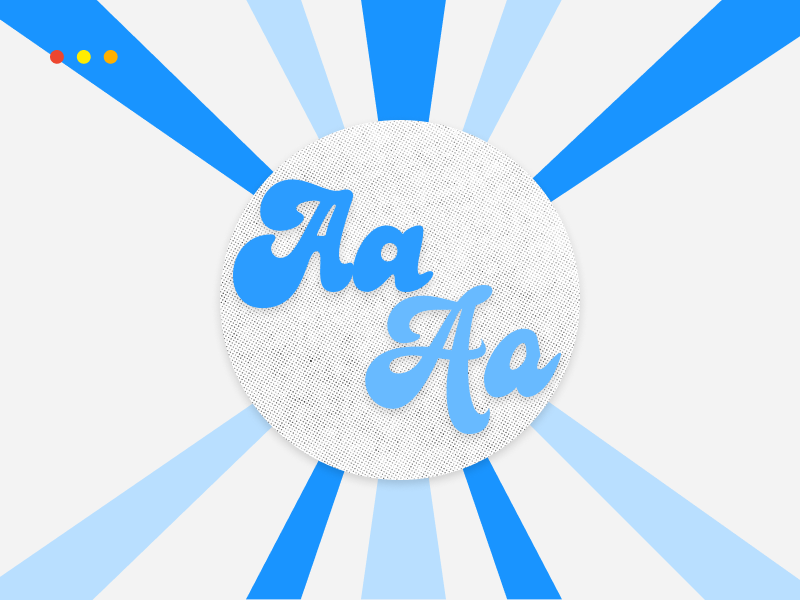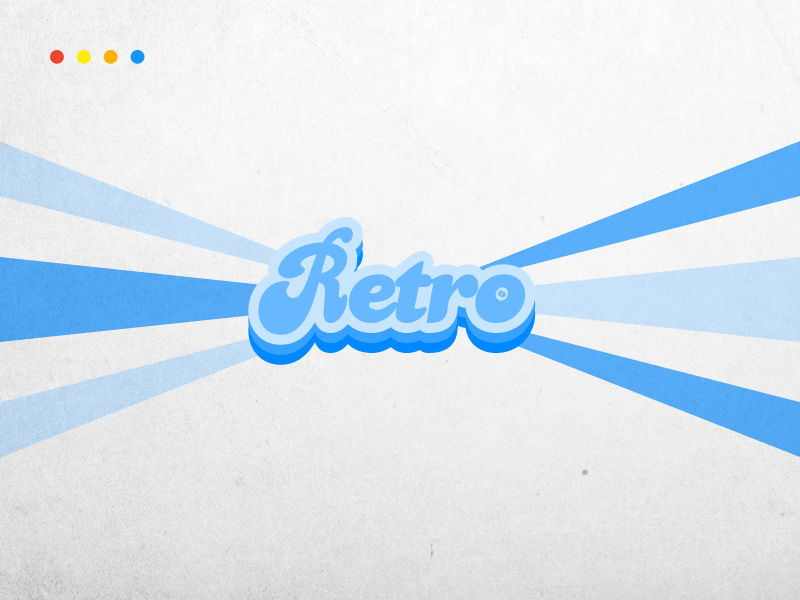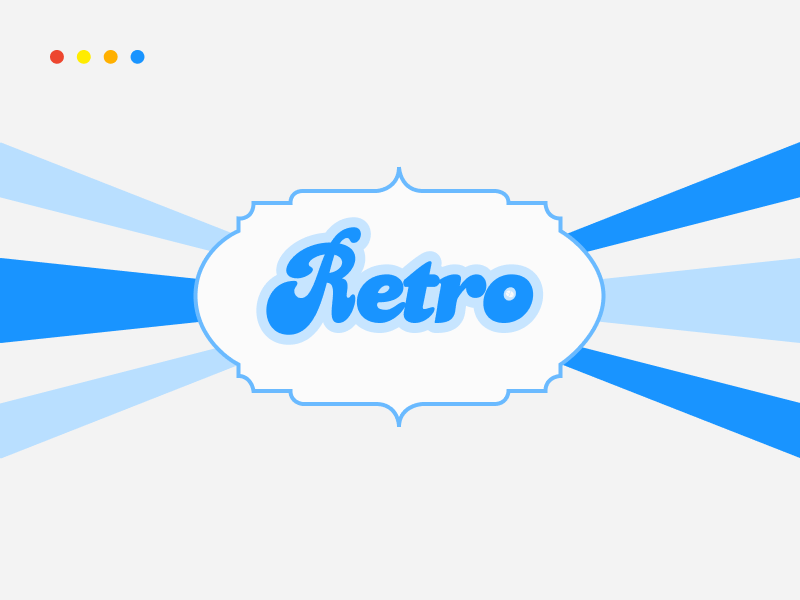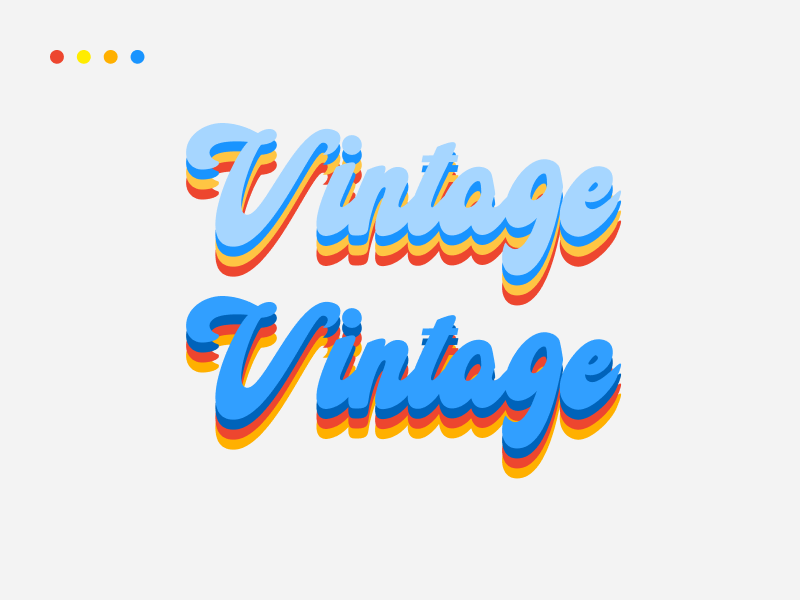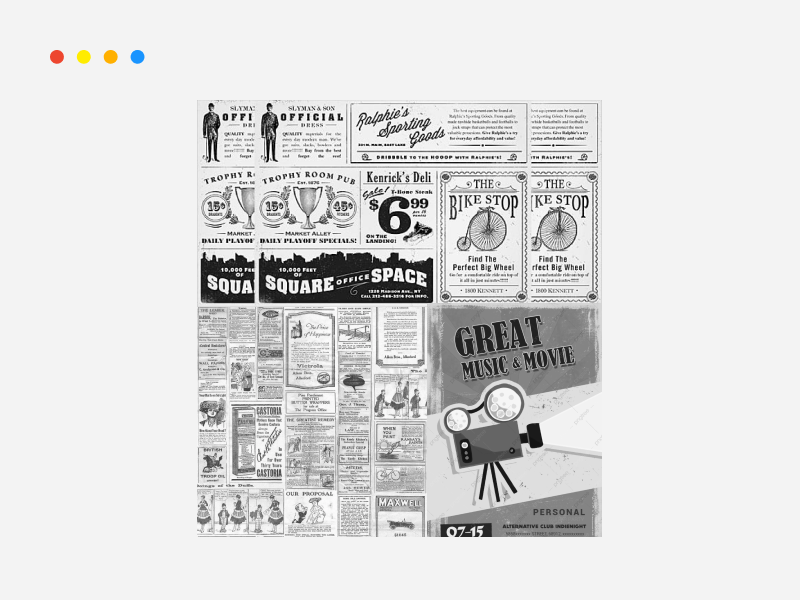
Retro Font Design: 5 Proven Tips For Creating Vintage Typefaces
Do you find creating a retro font design trickier than you initially thought? Or do you feel like you lack the inspiration and experience to come up with vintage typefaces that fit your branding?
You aim for uniqueness but need to stay practical. This balance between vintage charm and modern standards is overwhelming.
However, retro typography isn’t much of a challenge once you understand the main principles behind it.
In this article, I’m going to share with you five tips for retro font design that have been tested and approved by my web design agency in Los Angeles.
You’ll learn what makes a good retro font design and gain inspiration to come up with unique retro typefaces on your own. You’ll learn how to implement retro typography on your website to boost user engagement and brand recognition while maintaining readability.
Retro font design
What Is Retro Typography?
If you’ve worked on retro website design before, you’ve likely tried to come up with fonts that evoke a sense of nostalgia and past. Capturing a bygone era through fonts can be challenging, and that’s what retro typography revolves around.
As one of the biggest 2024 font trends, this style draws inspiration from various time periods, each with its unique typographic character. Think of the bold, geometric shapes of the Art Deco era or the whimsical, flowing scripts of the 1950s and 60s. These eras provide a rich tapestry of design elements that speak of their times.
Why Every Designer Should Learn How To Create Retro Fonts In 2024
Retro typography doesn’t necessarily belong to the past. It’s one of the rising 2024 graphic design trends, as designers keep finding unique ways to blend the past with modern styles.
Here are some of the reasons why retro font design is becoming more and more popular:
Retro fonts work well with various styles:
Whether you’re working on a modern minimalist graphic design or you want to take your audience back to the 1950s, retro fonts can probably find an appropriate place in your designs.
You can use them to complement your designs or to achieve contrast. Their versatility makes them a safe bet for most projects, even in futuristic graphic design.
You can use retro fonts to grab attention:
Retro fonts can be a powerful choice for headlines as they’re proven to draw the attention of various audience segments.
It’s easy to make them stand out and achieve a strong visual hierarchy.
Retro fonts can add to a brand’s storytelling:
Retro fonts have the unique ability to infuse personality into web design branding. They can convey a range of emotions and associations – from sophistication and elegance to fun and whimsy.
This makes them particularly useful for brands looking to establish a strong, distinctive identity. By carefully selecting and crafting retro fonts, designers can significantly contribute to a brand’s storytelling, making it more relatable and memorable to the target audience.
5 Retro Font Design Tips That Will Inspire You To Come Up With Unique Typefaces
While there are many nice-looking retro fonts out there, I always recommend creating custom fonts for your projects. Creating your own retro typefaces is easier than it might initially seem.
Here are five tips that will help you master retro typography:
1. Create Decorative Initials and Capital Letters
Decorative initials for vintage fonts
You’ll often see decorative initials or capital letters in retro typography. Their roots trace back to the illuminated manuscripts of the Middle Ages. Artisans crafted initial letters to captivate and engage the reader. These ornate letters, often vibrant and richly detailed, set the stage for the stories they introduced.
Incorporating decorative initials in retro font design serves multiple purposes.
Firstly, it’s a nod to typography’s rich heritage, creating a sense of connection with the past. This stylistic choice can add depth and character to your design, making it stand out.
In the context of modern UI design, you can use these decorative letters as striking visual anchors that will guide the viewer’s eye and add a layer of sophistication.
Another creative approach is to manipulate the size of the first and last letters in a word or sentence. By enlarging these letters, you create a framing effect that can enhance the overall composition of your design.
At Alpha Efficiency, I always encourage my designers to experiment; you can even play around with retro handwritten fonts to achieve a unique vibe.
2. Study Vintage Print Media To Gain Inspiration For Your Retro Font Design
However, the key to good retro font design is in balancing nostalgia with modernity, creativity with practicality, and individuality with brand alignment. You must aim to make a statement that resonates with your audience and enhances the overall user experience.
Keep these tips in mind, and let the timeless beauty of retro fonts inspire your creative journey.